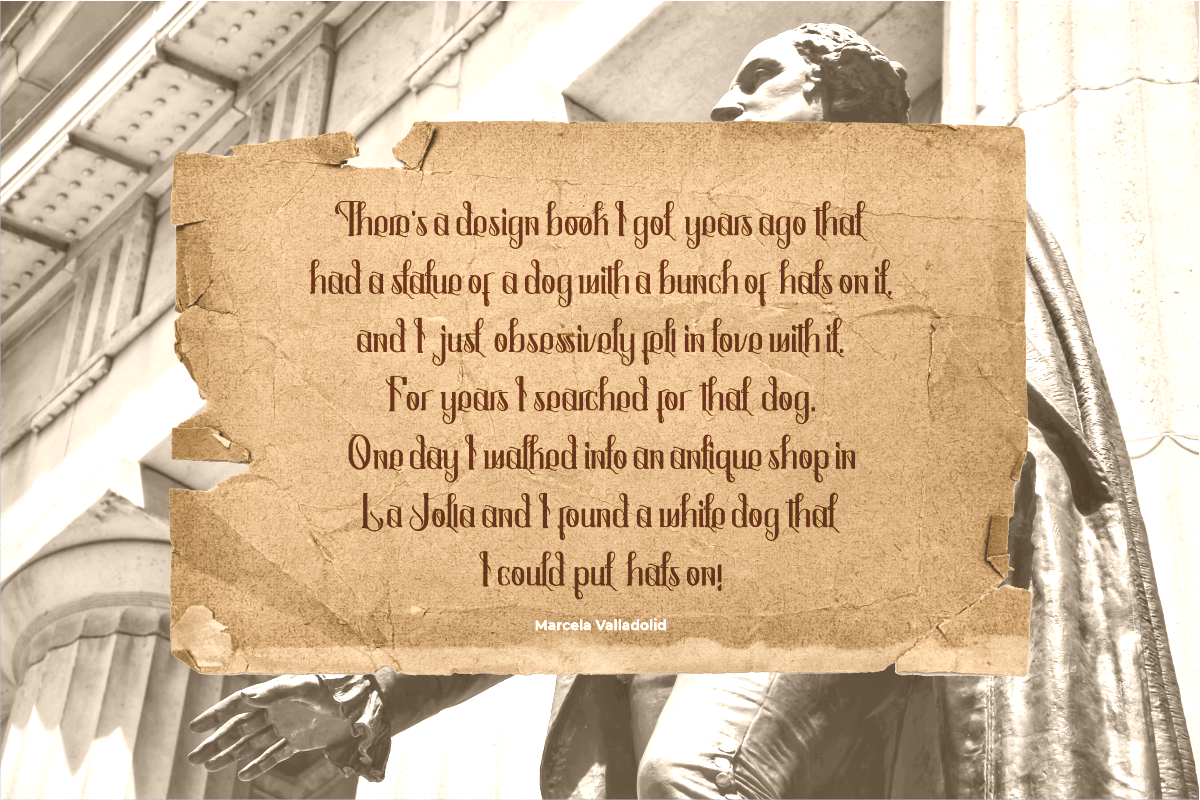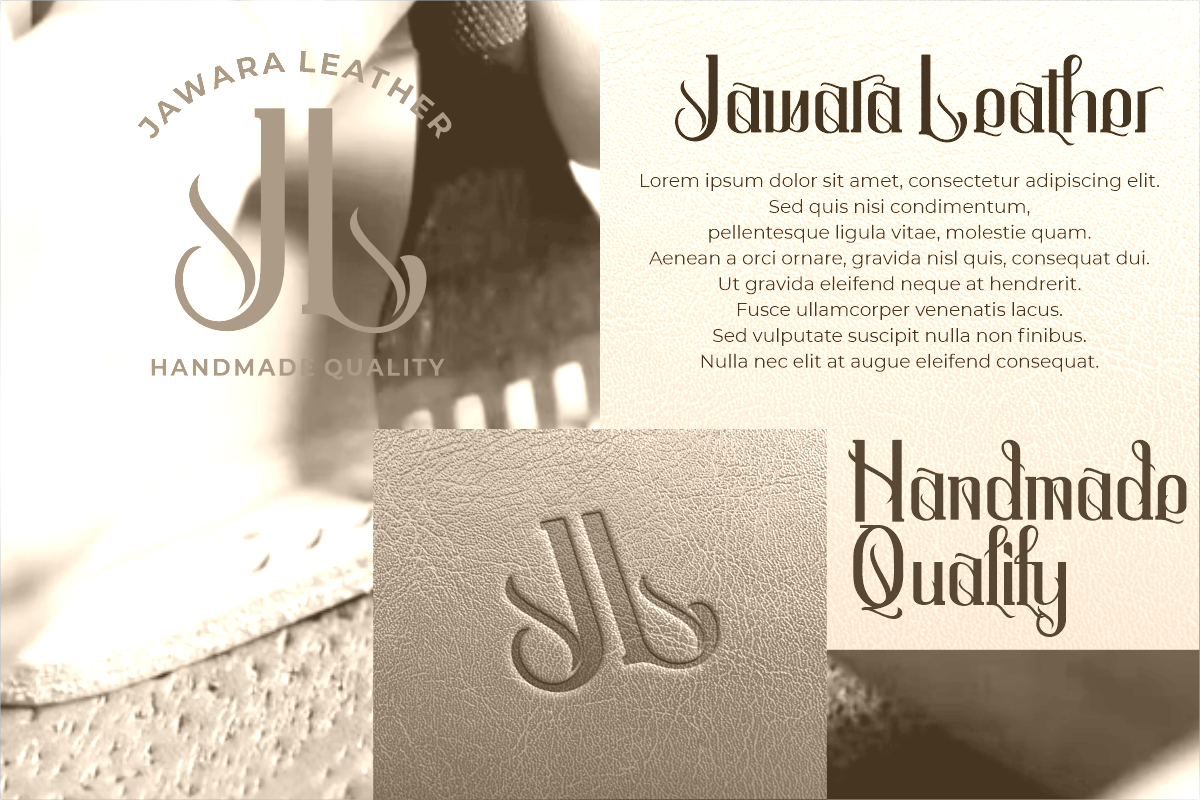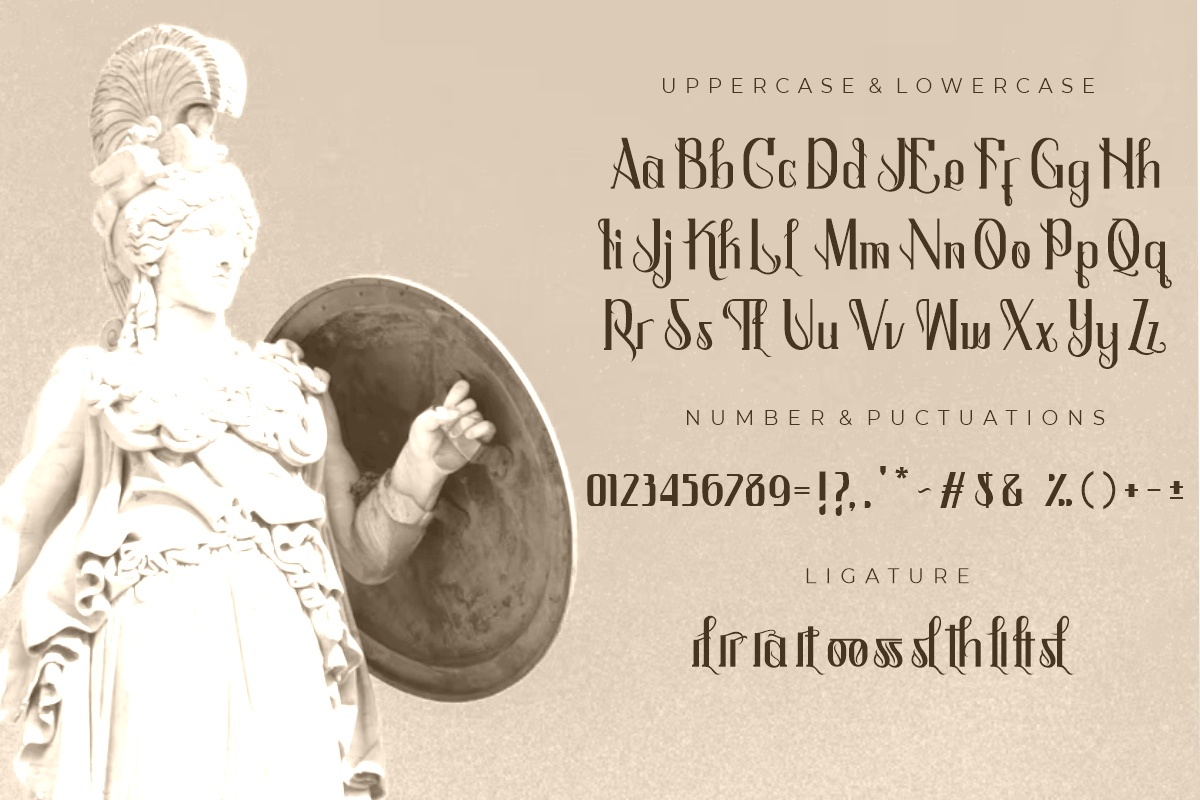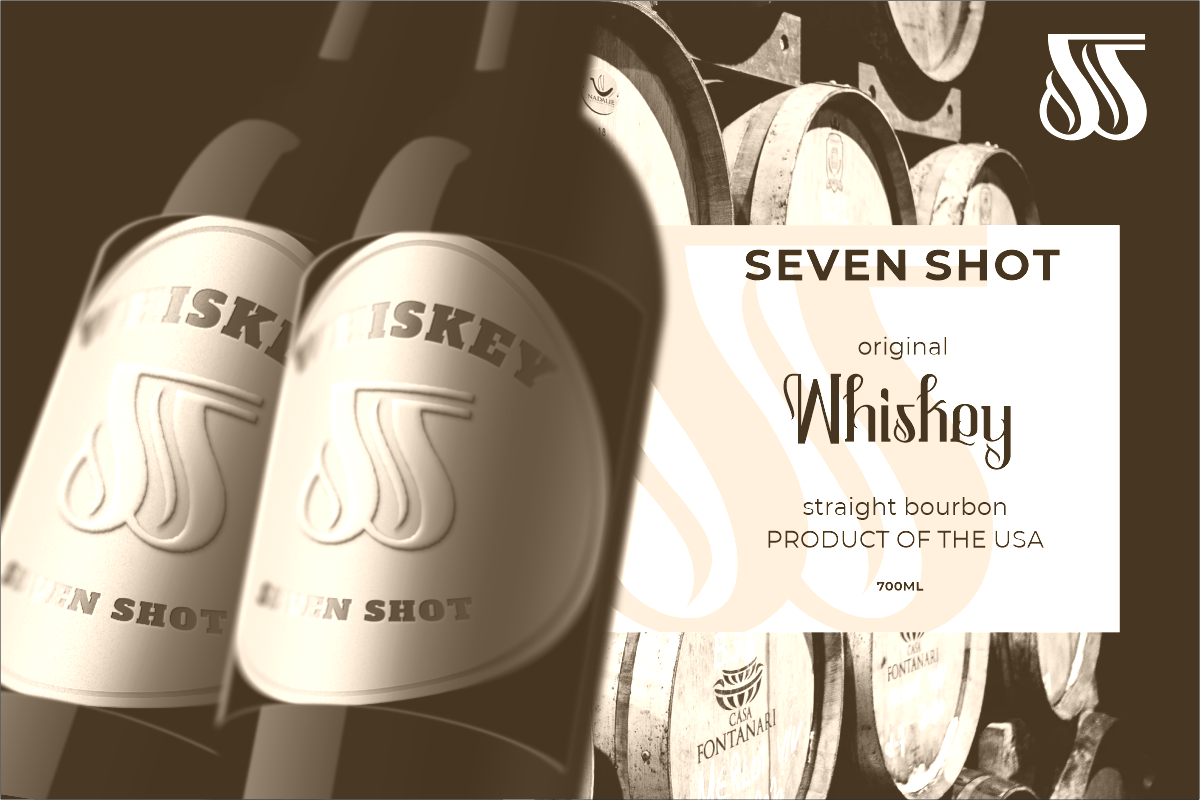
Qramesy Font
Qramesy Display Font
It’s a decorative display font, in retro and vintage style. Its bold shape and combined with creative décor, this font looks beautiful.